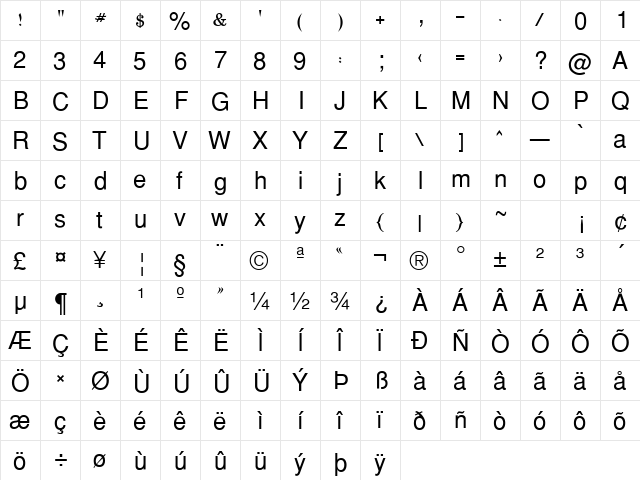
WinSoft Naskh Pro Medium
| Foundry | WinSoft S. A. |
| Designer | Mourad Boutros |
Design Context for WinSoft Naskh Pro Typeface
WinSoft Naskh Pro takes a measured approach to typography — its balanced proportions and neutral character make it a reliable workhorse for both digital and print work.
Pro Tip: Use WinSoft Naskh Pro in both headline and body roles to test its range before committing to a single application.